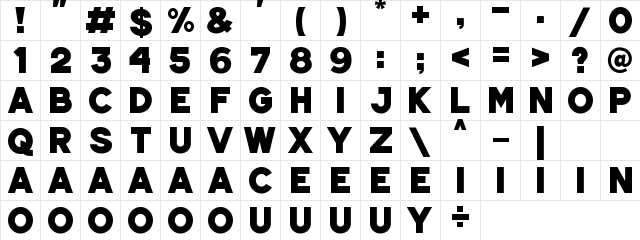
JUNAR Regular
| Designer | AddeSant |
Design Context for JUNAR Typeface
JUNAR takes a measured approach to typography — its balanced proportions and neutral character make it a reliable workhorse for both digital and print work.